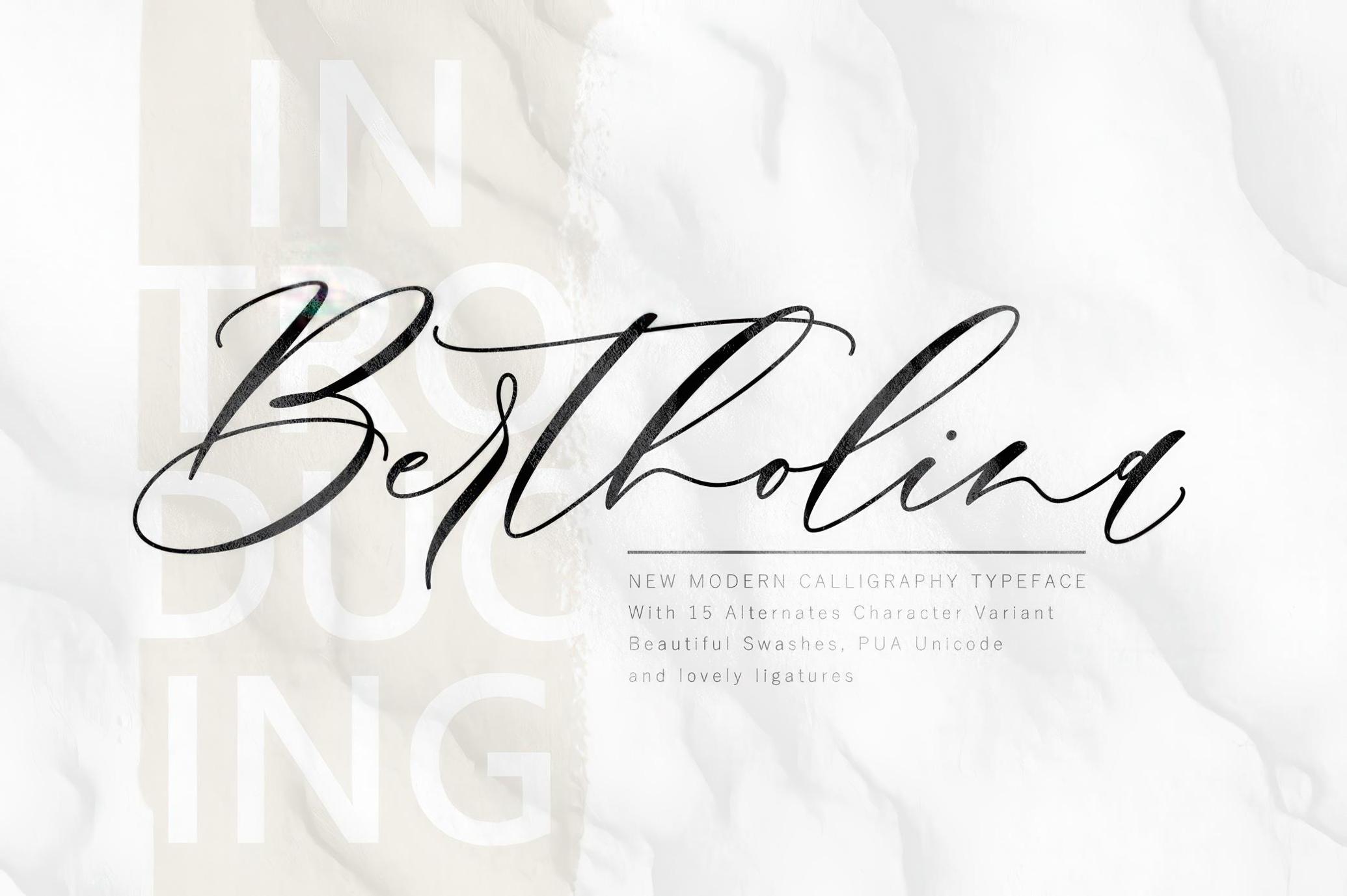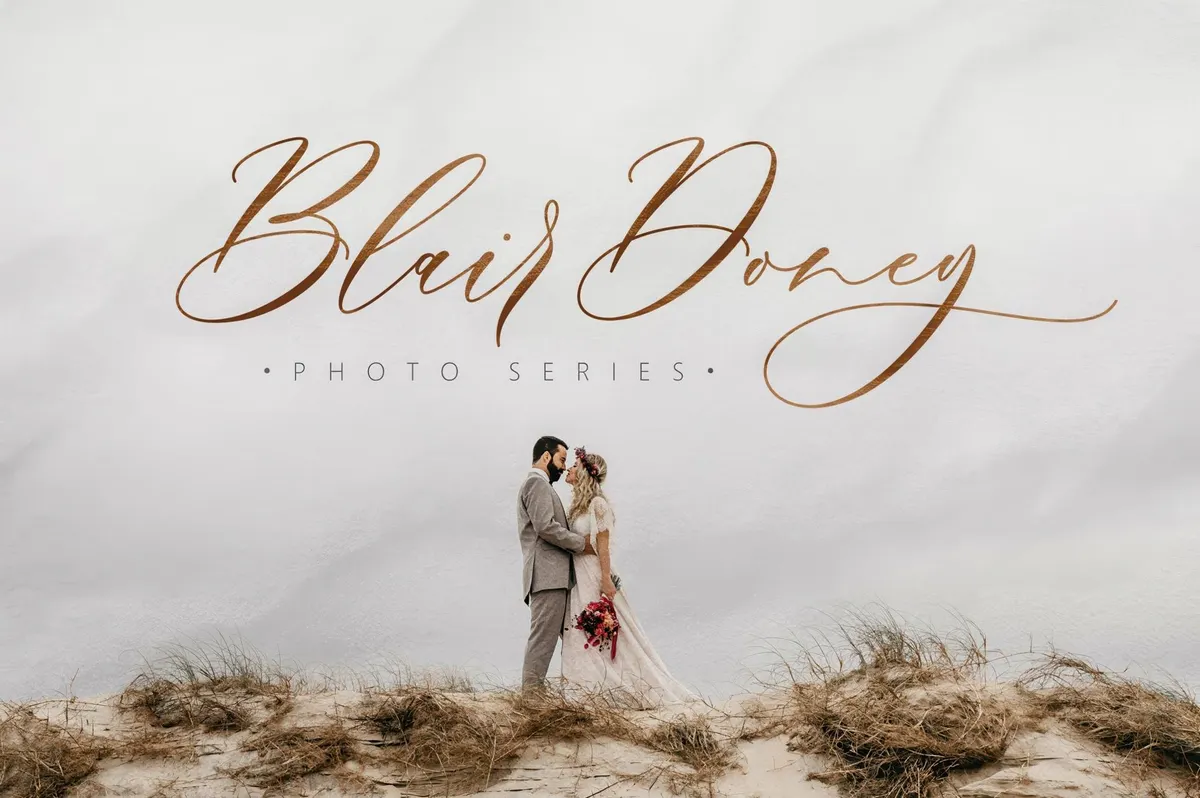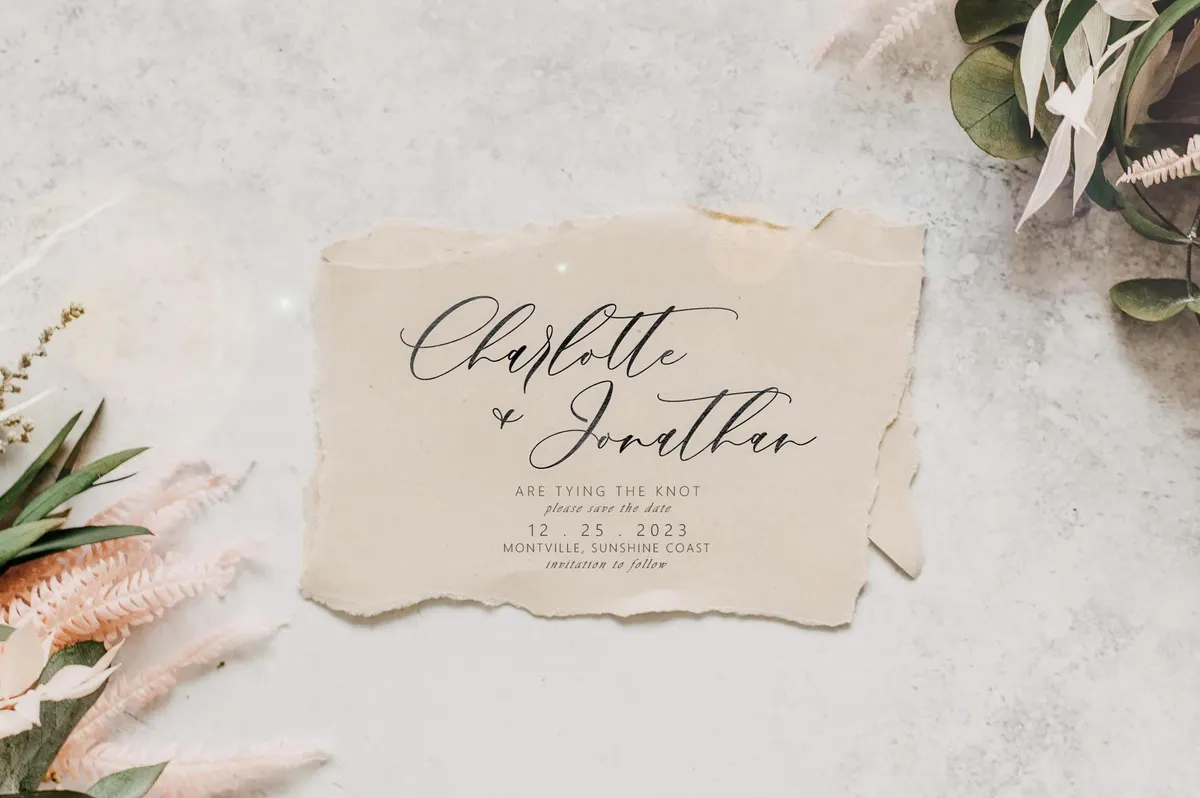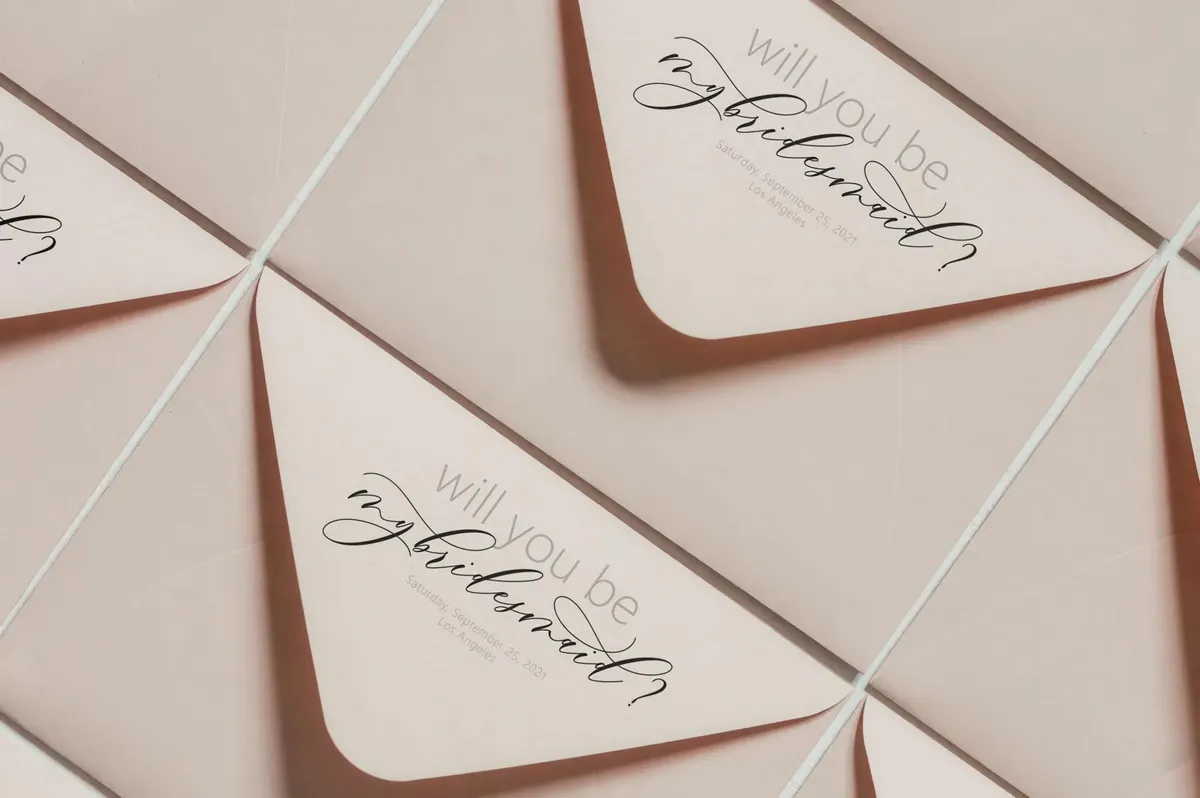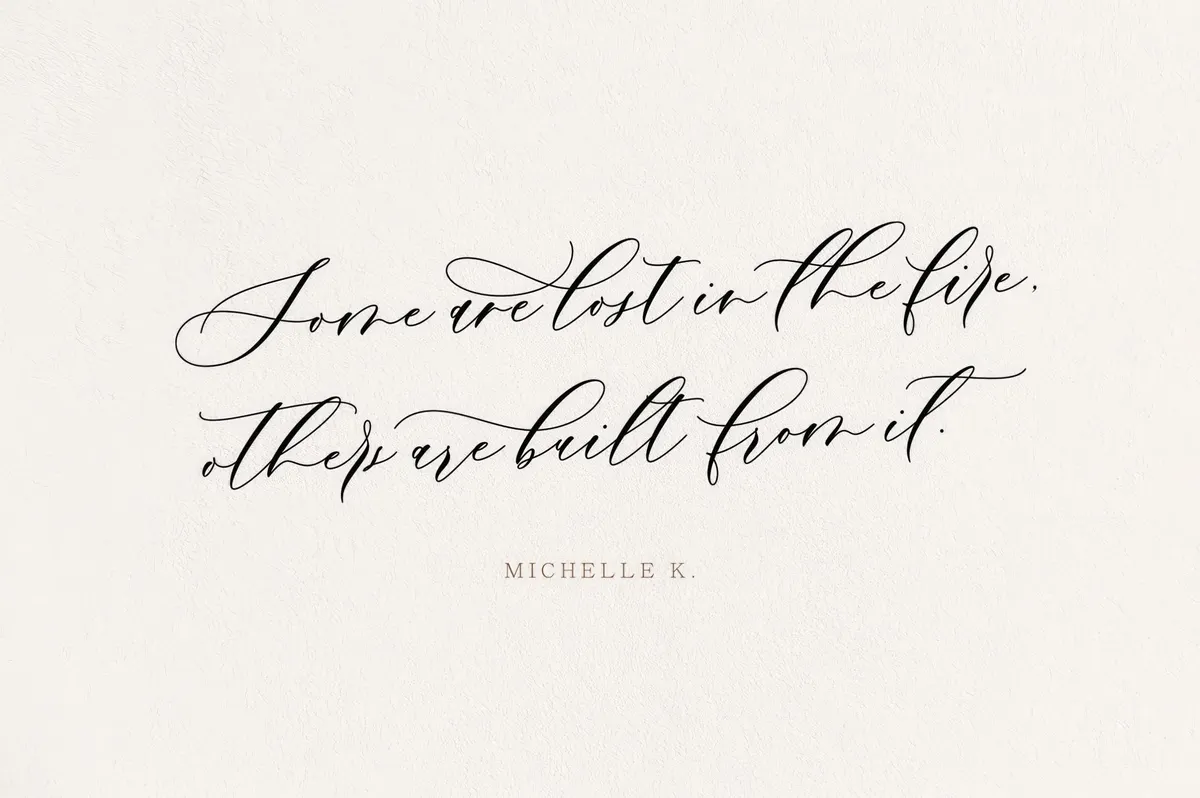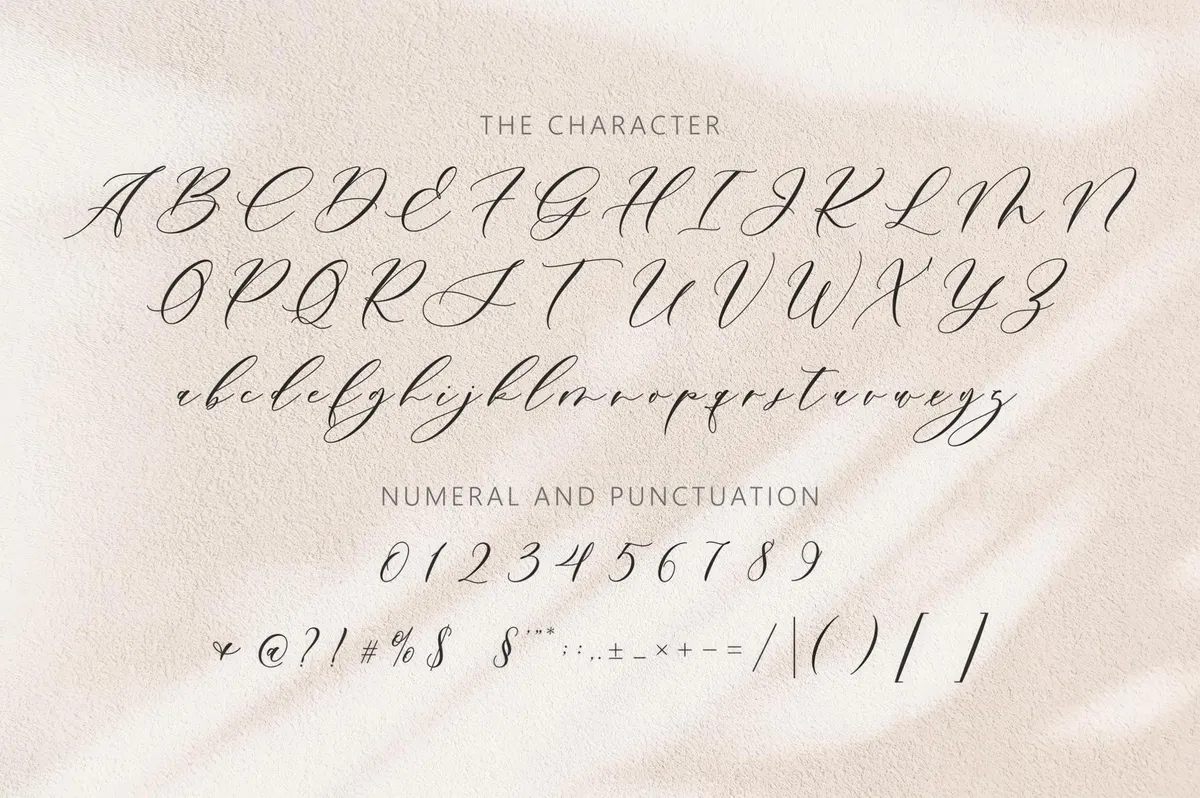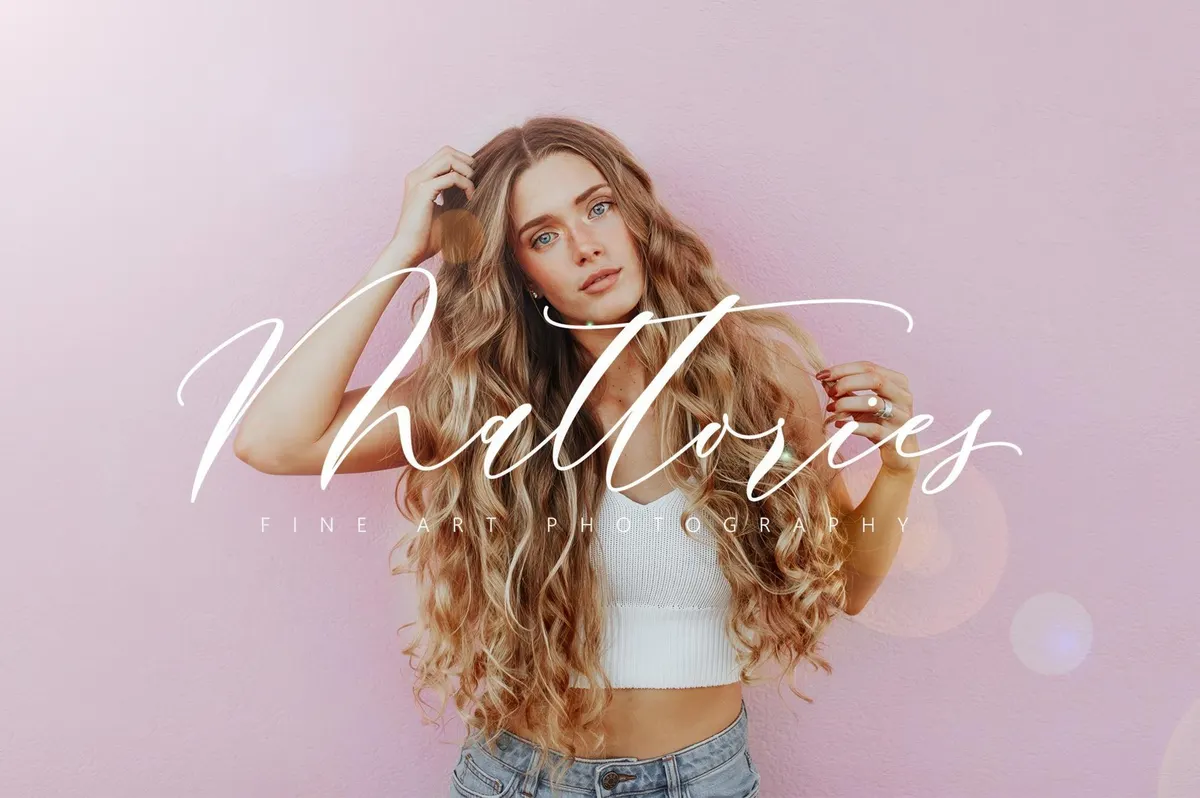
Bertholina Script
Bertholina dances across the page with the grace of a handwritten love note and the confidence of couture. This modern calligraphy script wraps every word in charm, with 15 alternate characters, flowing swashes, and elegant ligatures that feel effortless yet intentional. Designed with PUA Unicode support, Bertholina brings poetry to branding, packaging, greeting cards, and invitations. Perfect for branding suites, wedding materials, love letters (digital or otherwise), and fashion logos.